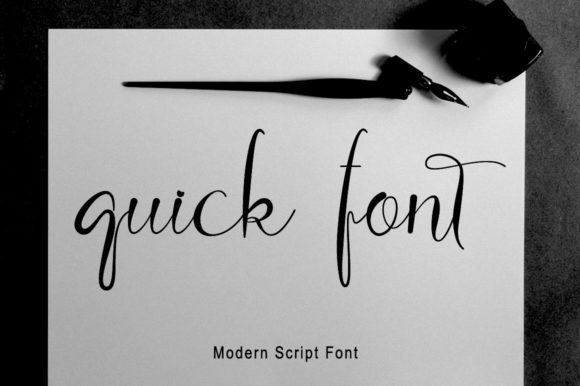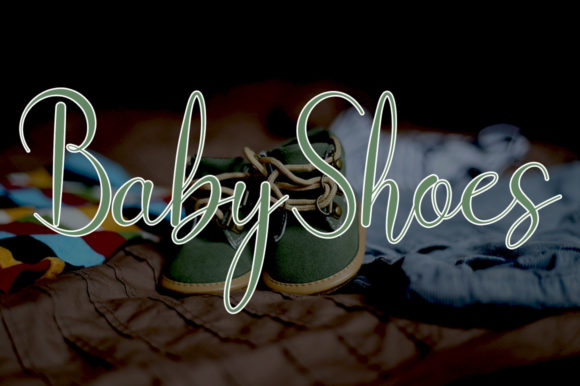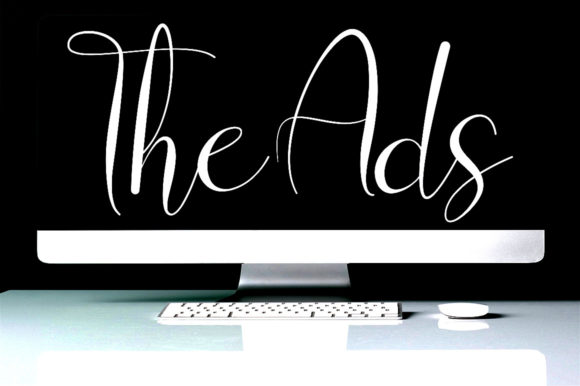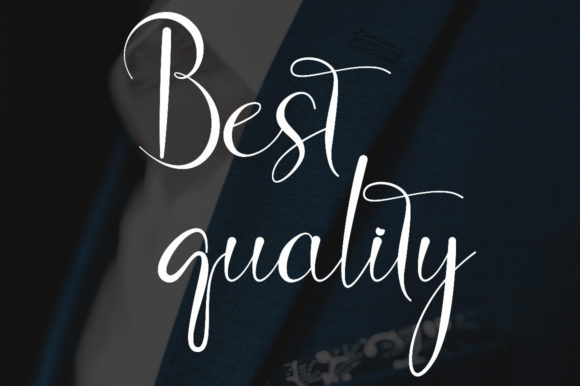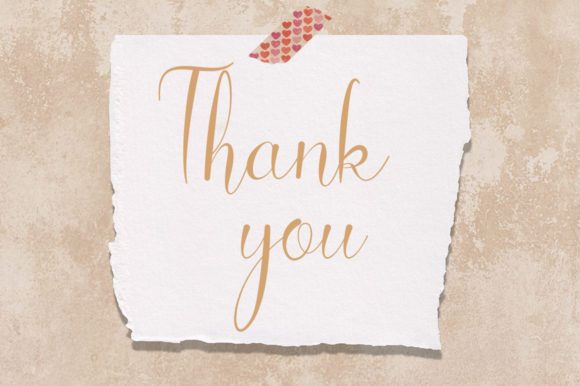
The Enchanting Cathrie Font: A Designer’s Dream Come True
I still remember the day I stumbled upon the perfect font for a wedding invitation project. I had been searching for what felt like hours, trying out font after font, but none seemed to capture the romantic and whimsical feel my client was looking for. That was until I discovered the stunning Cathrie font. With its dainty and enchanting script, it was love at first sight! In this article, I’ll share my experience with Cathrie, its features, and how to make the most of it in your designs.
A Personal Review of Cathrie Font
As a designer, I’m always on the lookout for fonts that can elevate my projects and make them stand out. Cathrie font has become a go-to in my font library, and here’s why:
- ✨ Romantic and Whimsical: Cathrie’s script is perfect for creating romantic and whimsical designs, from wedding invitations to love letters.
- ✅ Elegant and Refined: The font’s elegant and refined look makes it suitable for high-end designs, such as luxury branding and packaging.
- ✅ Easy to Read: Despite its script nature, Cathrie is surprisingly easy to read, even at smaller font sizes.
However, no font is perfect, and Cathrie has a few quirks:
- 🤔 Limited Ligatures: Cathrie has a limited number of ligatures, which might be a drawback for some designers.
- ⚠️ Not Suitable for Body Text: While Cathrie is easy to read, it’s not the best choice for body text due to its script nature.
The Story Behind Cathrie Font
Cathrie font was designed with love and care by a talented type designer. The font’s creator was inspired by traditional calligraphy and hand-lettering, aiming to create a font that would evoke a sense of romance and whimsy. The result is a stunning script font that has captured the hearts of designers worldwide.
| Font Name | Cathrie Font |
| Author | fahmistudio99 |
| What is Cathrie font best used for? | Cathrie font is best used for romantic and whimsical designs, such as wedding invitations, love letters, and luxury branding. |
| Is Cathrie font easy to read? | Yes, Cathrie font is surprisingly easy to read, even at smaller font sizes. |
| Does Cathrie font have OpenType features? | Yes, Cathrie font has OpenType features, such as glyphs and stylistic alternates, which can be accessed in compatible design software. |